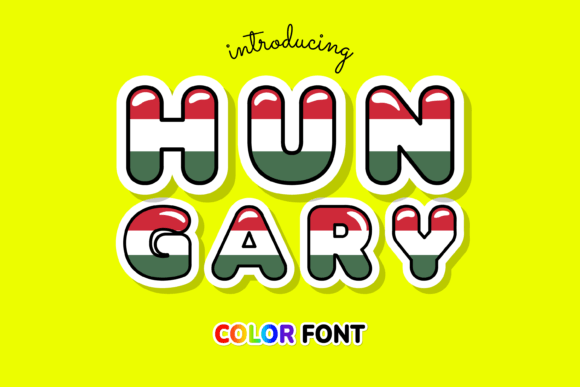
Say hello to Hungary Font, a vibrant, unforgettable creation from the JUSTTYPE foundry. This colorful font family, inspired by the colors of the Hungarian flag, is designed to captivate and inspire. Its unique style will lend an eye-catching charm to any project, whether it's a personal design, a crafted gift, or a professional endeavor.
Hungary Font is not just a font; it's an experience. Its colorful characters dance across the screen, brimming with joy and vibrancy. Each letter is a work of art, meticulously crafted to evoke a sense of wonder and delight. Use Hungary Font to create custom designs that pop, DIY crafts that sparkle, and any creation that demands a dash of color and whimsy.
With Hungary Font, you'll discover a world of creative possibilities. Its versatility knows no bounds, adapting seamlessly to a variety of projects. Envision your designs adorned with this captivating font, drawing the eyes of all who behold them. Your creativity will soar as you explore the endless applications of Hungary Font, transforming your ideas into vibrant realities.
The world needs more color, more joy, more inspiration. Hungary Font is your ticket to adding a splash of vibrancy and charm to your creative pursuits. Its colorful characters will bring a smile to your face and ignite your imagination. Embrace the magic of Hungary Font and let your creativity flourish like never before.